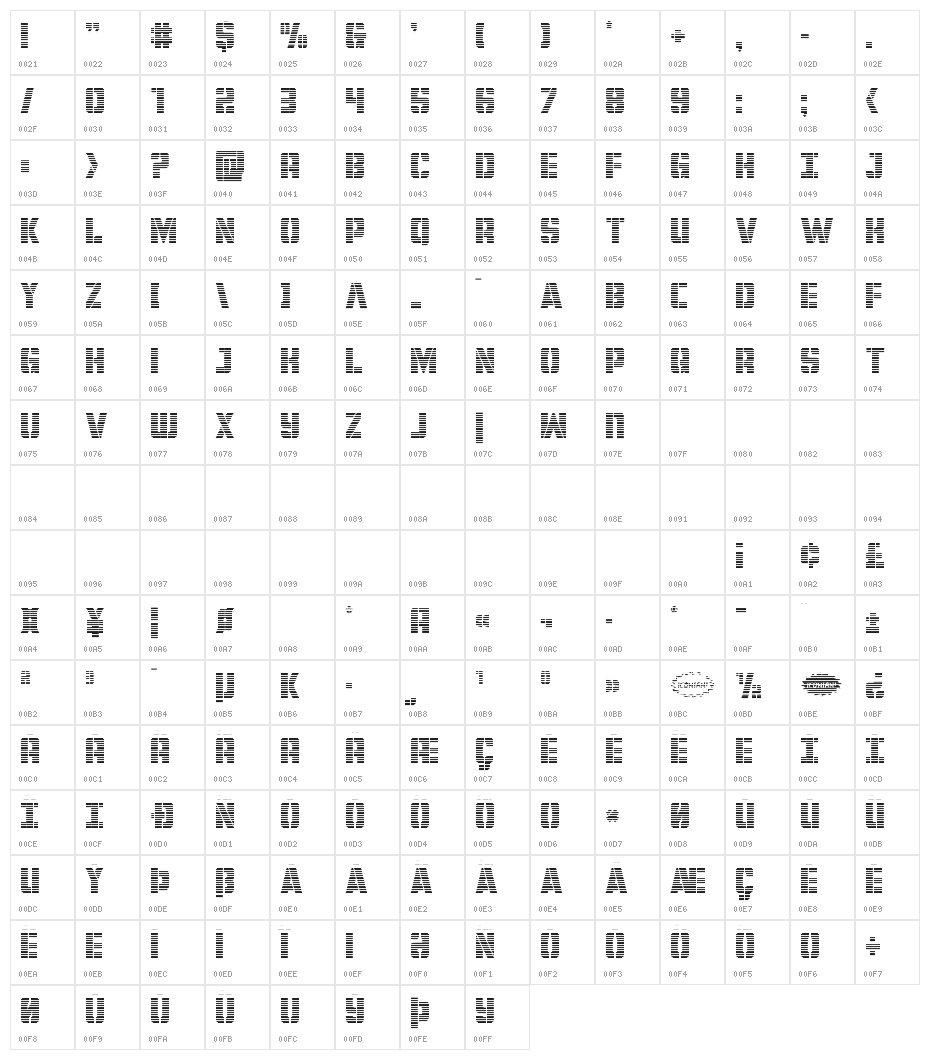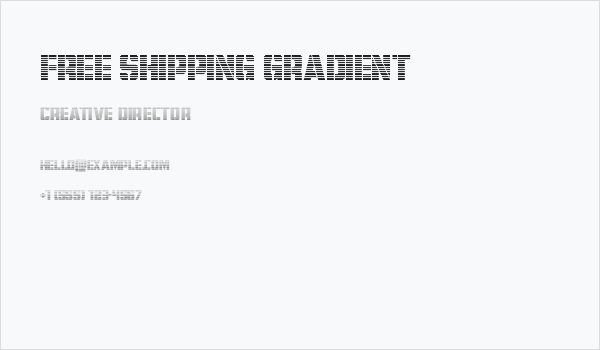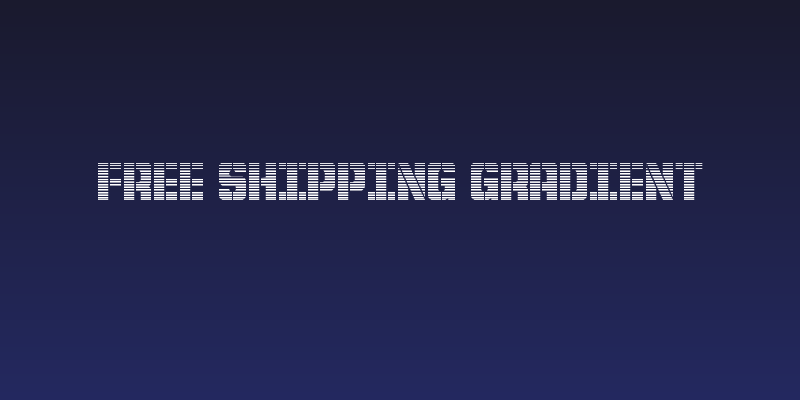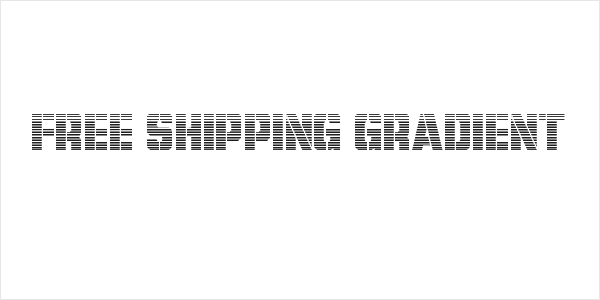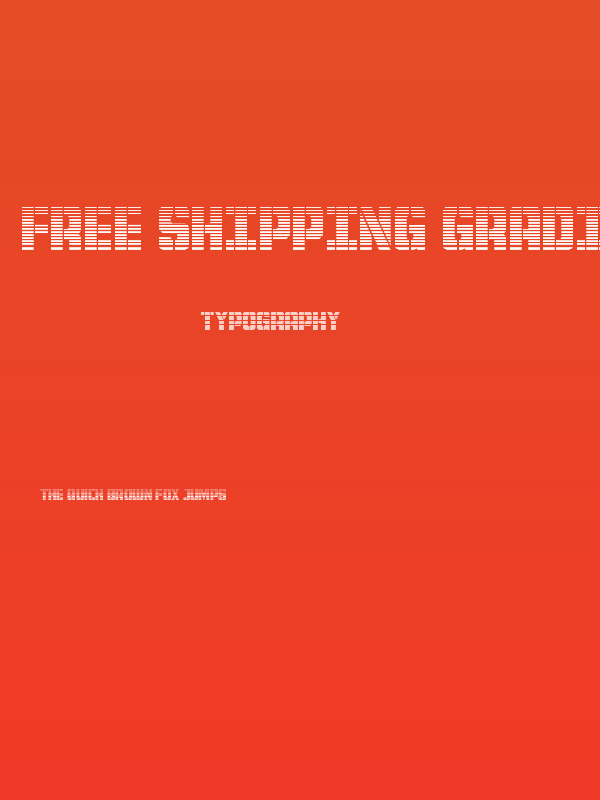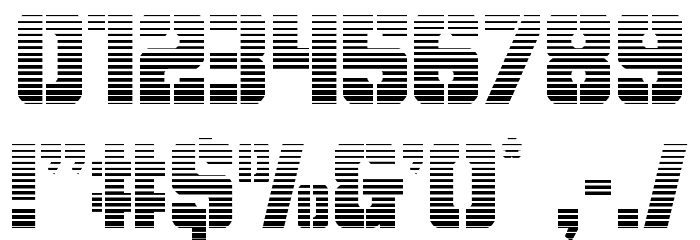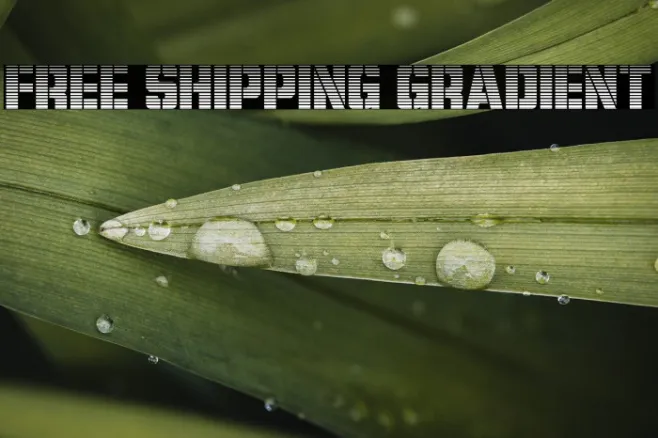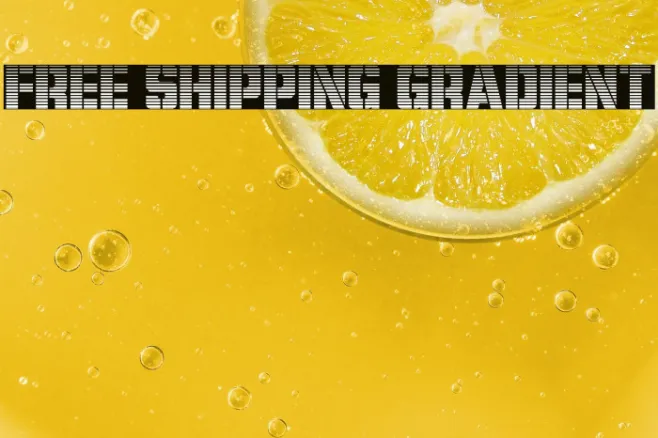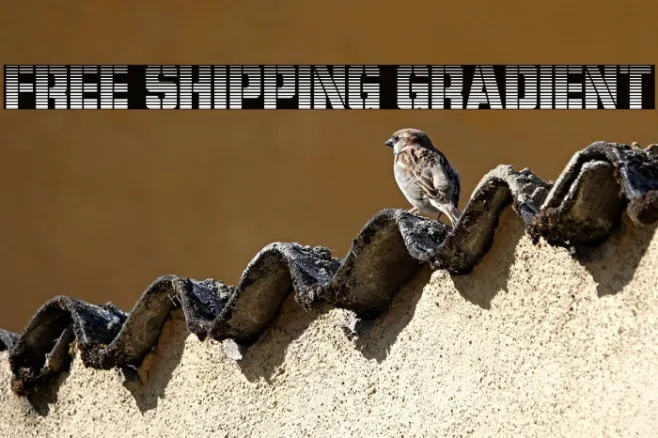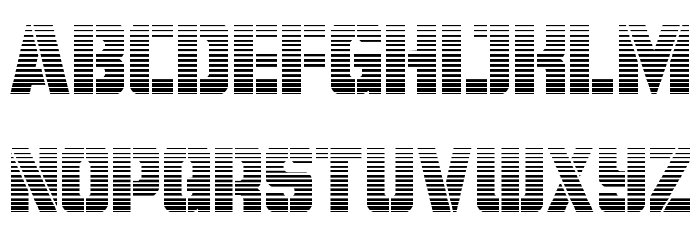
Free Shipping Gradient Font
Free Shipping Gradient Description
This font features a bold, geometric design with a distinct horizontal line pattern running through each character, creating a striking visual effect. The uppercase and lowercase letters, as well as numbers and special characters, maintain a consistent style, emphasizing a modern and industrial aesthetic. The uniformity of the lines gives it a structured and cohesive appearance, making it ideal for projects that require a strong visual impact. The font's unique style is both eye-catching and versatile, suitable for various creative applications.
| Proposed Projects | Ideal for branding, posters, headlines, and any design requiring a bold statement. |